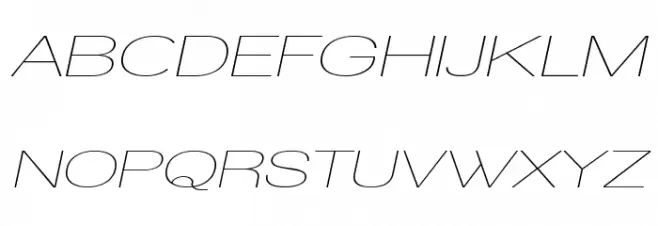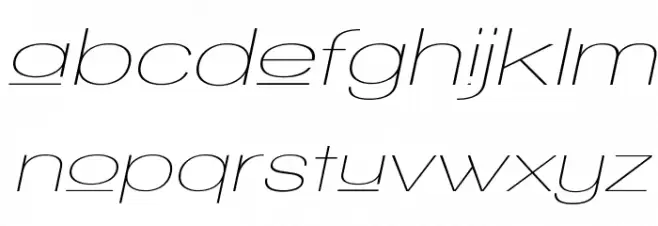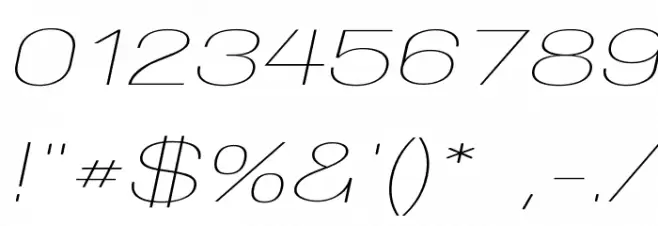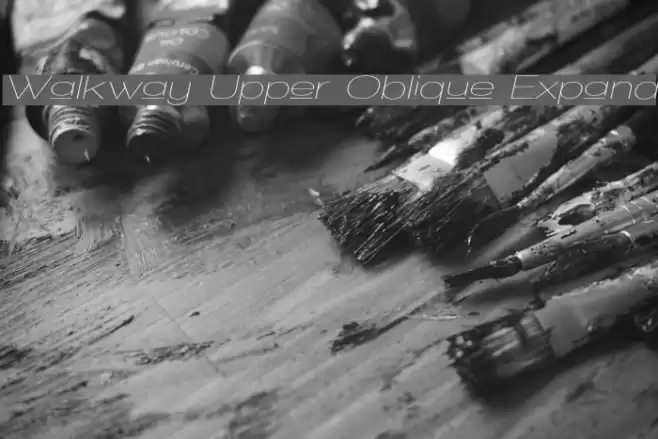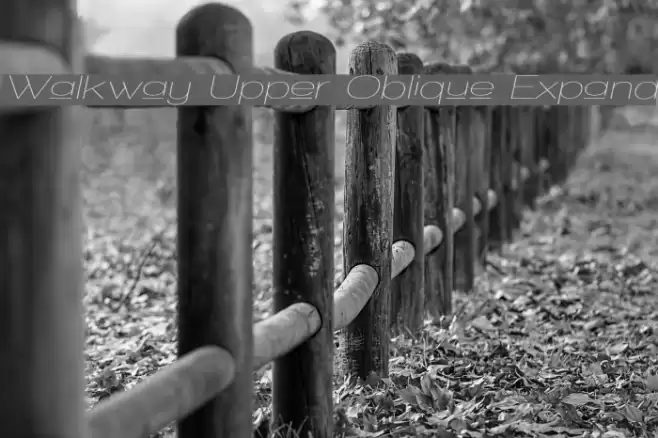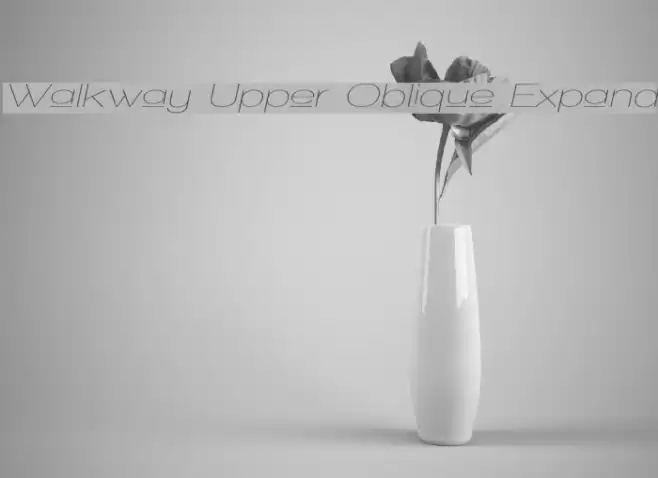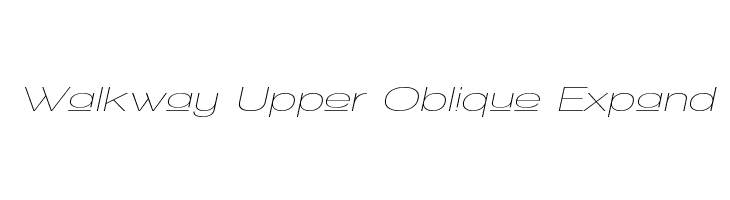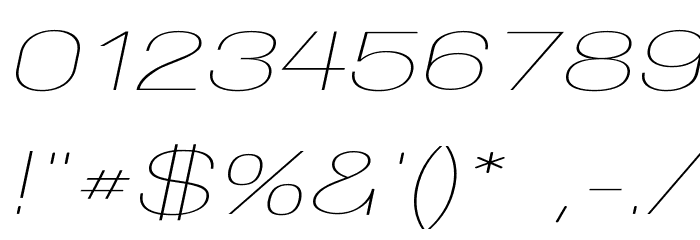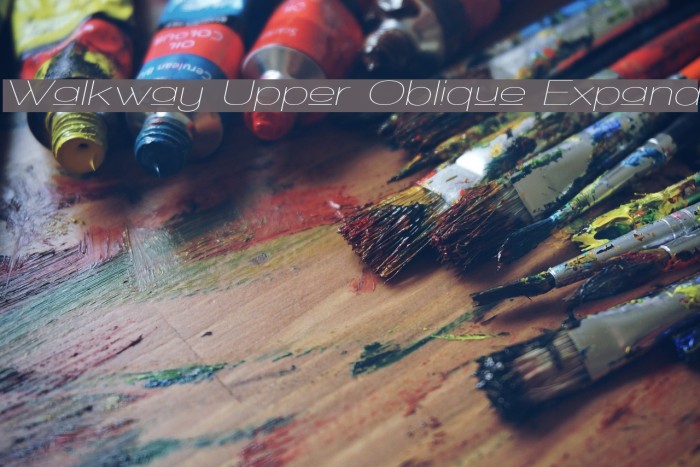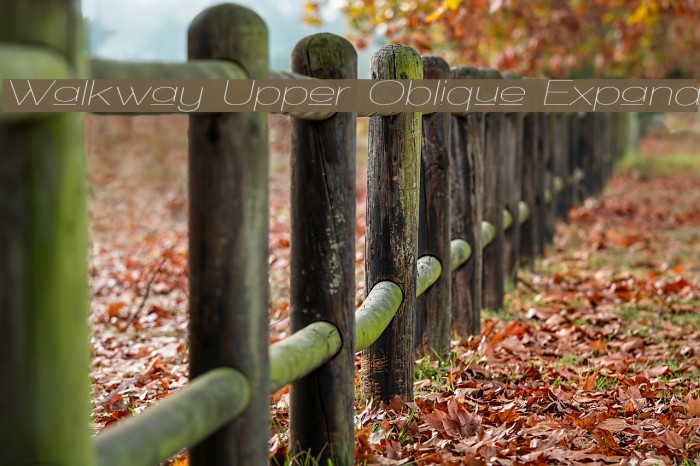
Walkway Upper Oblique Expand
This font features an oblique style with clean, geometric lines and a modern aesthetic. The characters are slightly slanted, giving a sense of motion and dynamism. The uppercase and lowercase letters maintain a consistent stroke width, contributing to a sleek and streamlined appearance. The numerals and special characters follow the same design principles, ensuring uniformity across all glyphs. The font's minimalistic design makes it versatile for various applications, while its oblique nature adds a touch of elegance and sophistication.
A modern, oblique font with clean, geometric lines and consistent stroke width.
- Proposed Projects: Ideal for branding, editorial design, and digital interfaces where a modern and dynamic look is desired.
- Use Case: Headlines, Logos, Digital interfaces